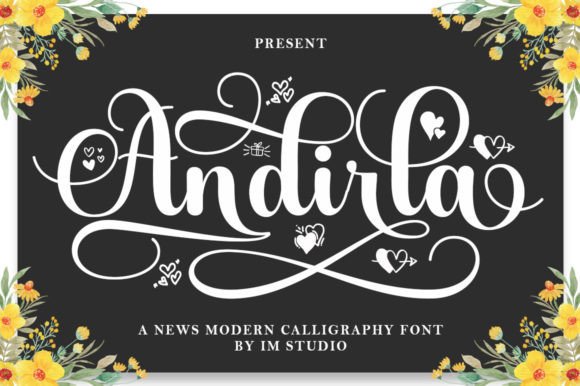
Looking for the best font for your script designs? Look no further than Andirla Font, created by the expert designers at IM Studio.
Andirla is a modern and flowing handwritten font that will take your designs to the next level. With its varied bases, smooth lines, gorgeous glyphs, and stunning alternatives, this font is the perfect choice for anyone looking to elevate their script designs.
But Andirla isn't just versatile - it's also incredibly beautiful. Its flowing lines and unique design make it the perfect choice for anyone looking to add a touch of elegance to their work. Whether you're designing invitations, creating logos, or just looking for a font that will make your designs stand out, Andirla is the perfect choice.